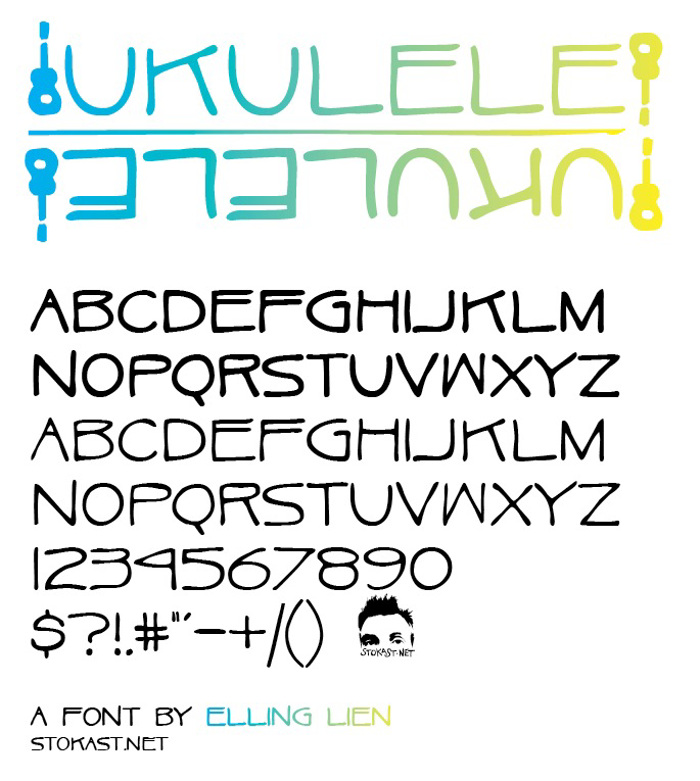
Ukulele Font
A little all caps font. Uppercase is bold, lowercase is regular.
12 years agoI like it a lot; it's kind of like the writing you would see on a blueprint or from a draftsman, but from the early 20th century, like Frank Lloyd Wright.
I enjoy this font of mine, but the star ratings here aren't as high as some of my other ones. Gimme some feedback! I'd love to hear any -- negative or positive.